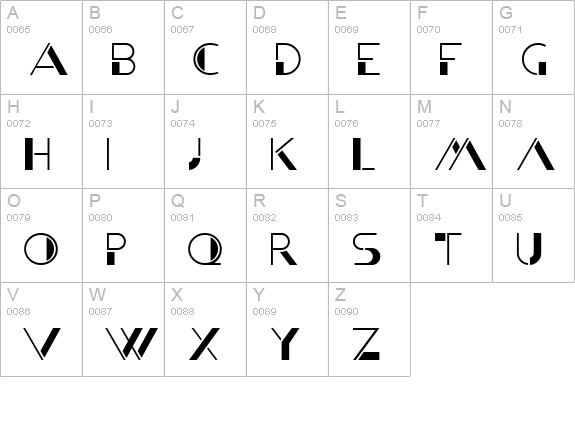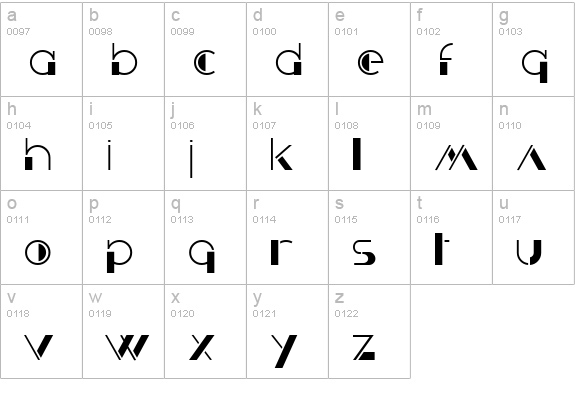
Krizia Uomo Font Details
Krizia Uomo is a free for personal use font in the Modern > Stencil category. It has been downloaded 34 times and is available for Windows, Mac and Linux.
Introducing Krizia Uomo font, a captivating typeface that exudes elegance and sophistication. With its sleek and refined design, this font is perfect for adding a touch of class to any project. Krizia Uomo font is meticulously crafted with attention to detail, resulting in beautifully balanced letterforms and smooth curves. Its versatile nature allows it to be used in a variety of design applications, from branding and packaging to editorial design and advertising. What sets Krizia Uomo font apart is not only its exceptional aesthetic appeal but also its accessibility. This font is freely available to download at FontsMarket.com, making it easily accessible to designers, creatives, and typography enthusiasts alike. Now you can enhance your projects with this stunning font without any limitations. Whether you're creating a sophisticated logo, designing a luxurious magazine layout, or crafting an eye-catching poster, Krizia Uomo font will elevate your designs to new heights. Its timeless appeal and timeless elegance ensure that your work will stand the test of time. So why wait? Download Krizia Uomo font today and unlock a world of possibilities. Let your creativity flow freely with this exquisite typeface, and watch as your designs come to life with an unparalleled touch of class.